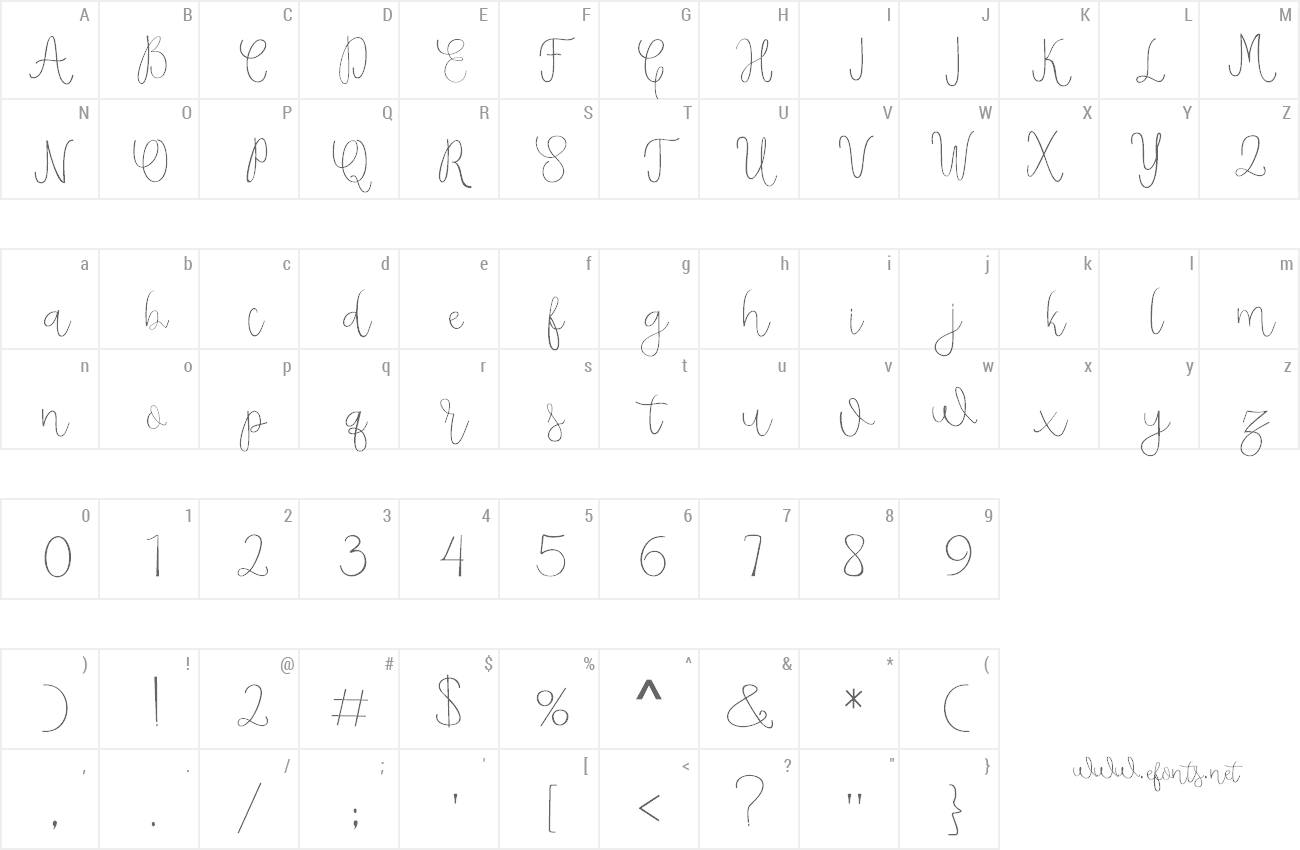
Preview and download Dughter Font. Created by Rahmat Hidayat in Script Handwritten styles with Free for personal use license.
| Font name: | Dughter |
| Author: | Rahmat Hidayat |
Dughter is a script font that has the characteristic handwriting, it is very suitable to make certain label and event business and you could be using for a unique piece. Visit here to get full version License : Free for personal use File Type : ttf Visit here to get all produck: https://creativemarket.com/Deniz86/1343586-Dughter-New-Update https://fontbundles.net/deniz86/160629-16-incredible-handwritten-fonts Thanks Deniz86 |